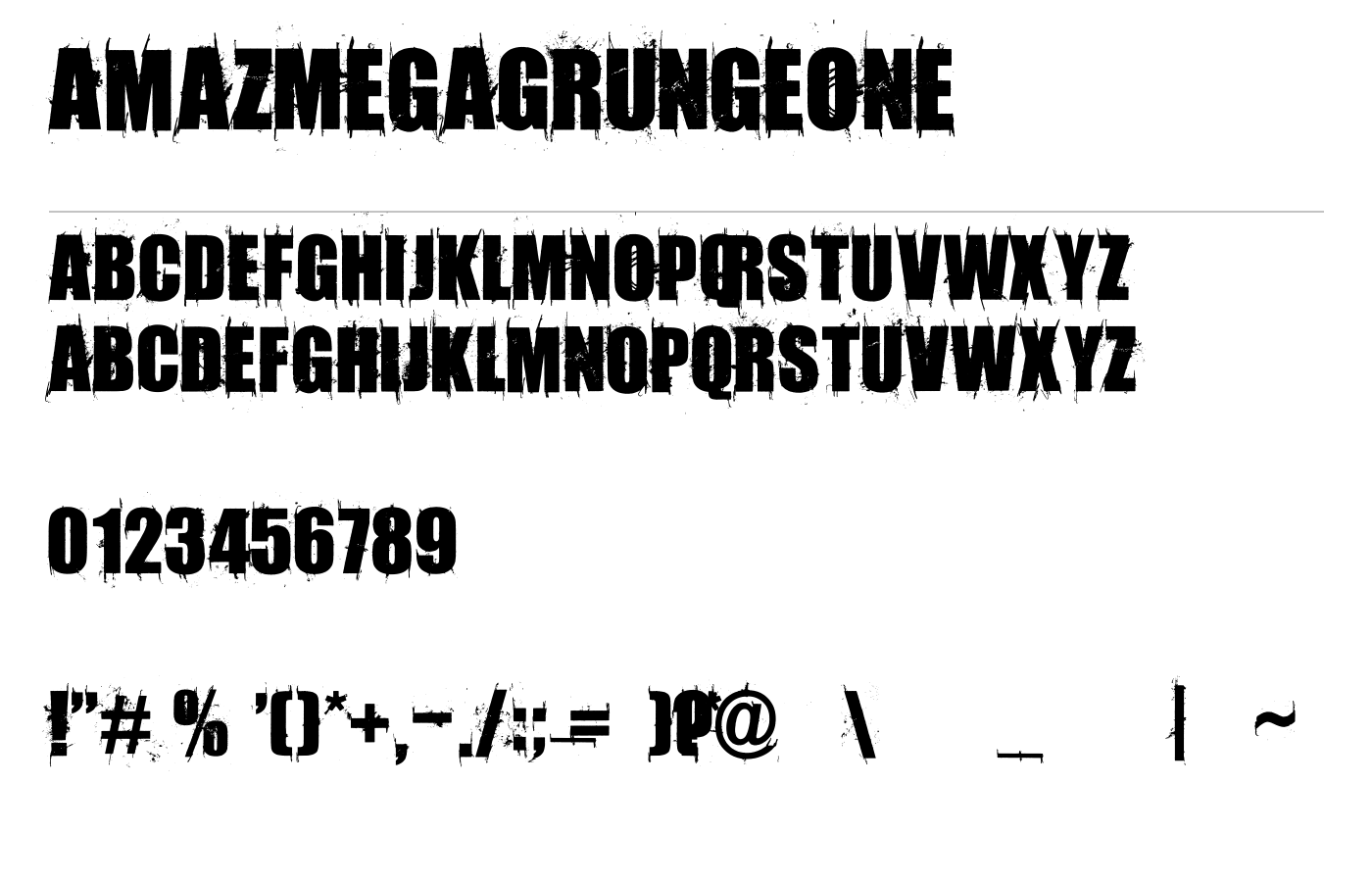
AmazMegaGrungeOne is a bold, condensed sans serif font with a rough, distressed texture that gives it a gritty, urban feel. Its strong, blocky letterforms combined with the grunge effect make it perfect for edgy, rebellious designs like posters, logos, and branding that want to stand out with a rugged, raw personality. This font works best in large sizes where its unique texture can grab attention and convey a bold, streetwise attitude.
AmazMegaGrungeOne Font
About AmazMegaGrungeOne Font